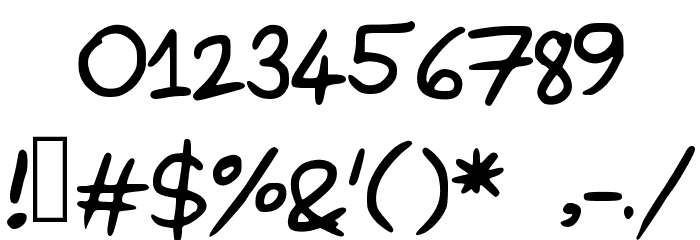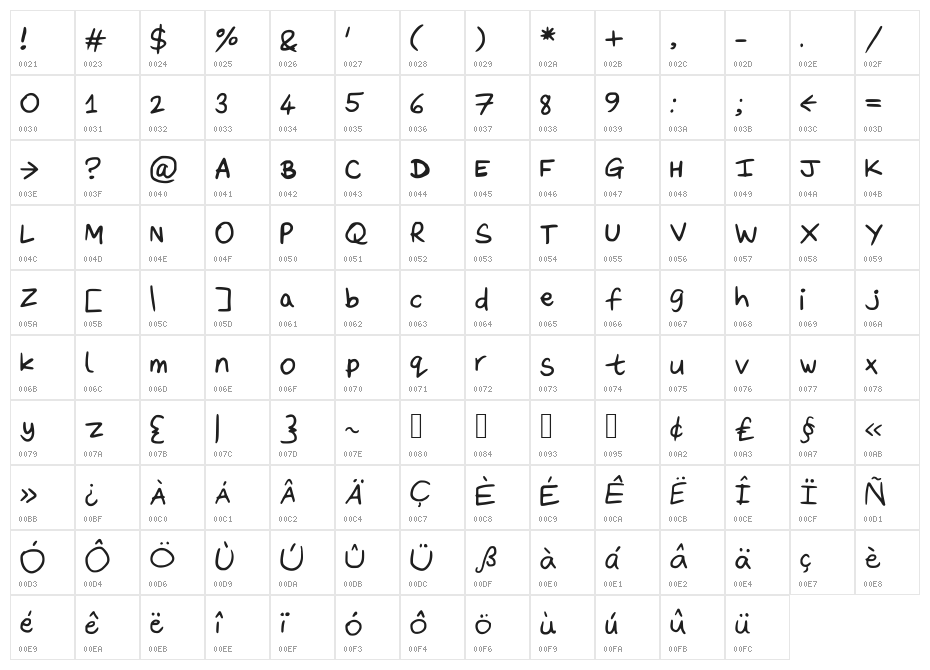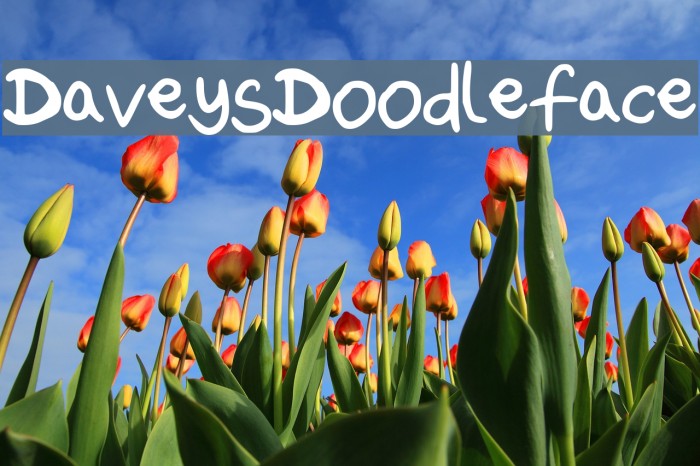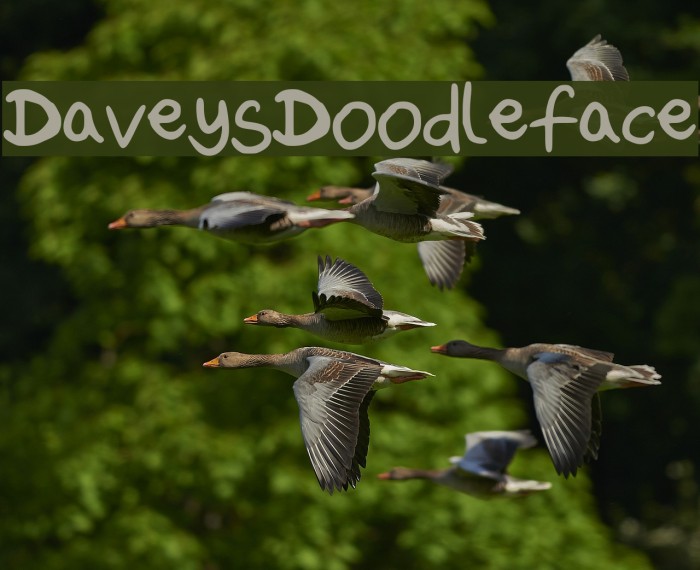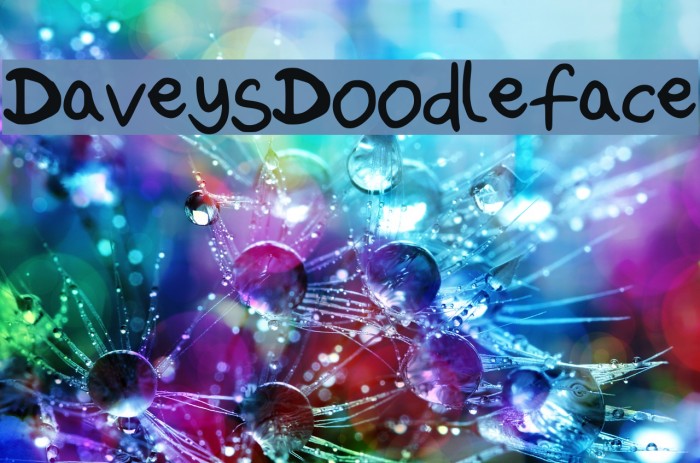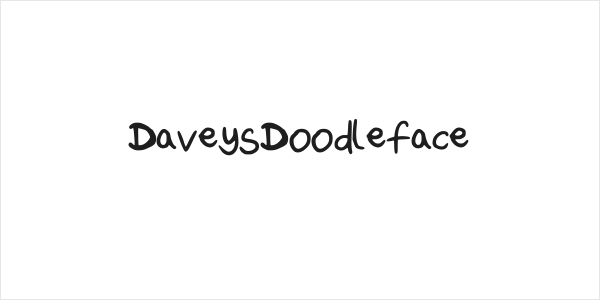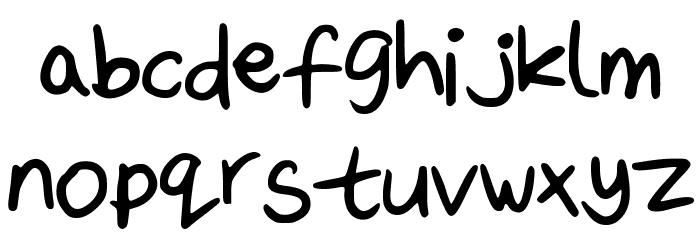
DaveysDoodleface Font
DaveysDoodleface Description
This playful and whimsical font features a hand-drawn, doodle-like style that exudes a sense of fun and creativity. The characters are bold and slightly irregular, giving them a casual, informal appearance. The uppercase and lowercase letters maintain a consistent style, with rounded edges and a slight tilt that adds to the font's charm. The numbers and special characters are equally expressive, maintaining the overall playful theme. This font is perfect for projects that require a touch of personality and a lighthearted feel.
| Proposed Projects | Ideal for children's books, playful branding, casual invitations, and creative posters. |